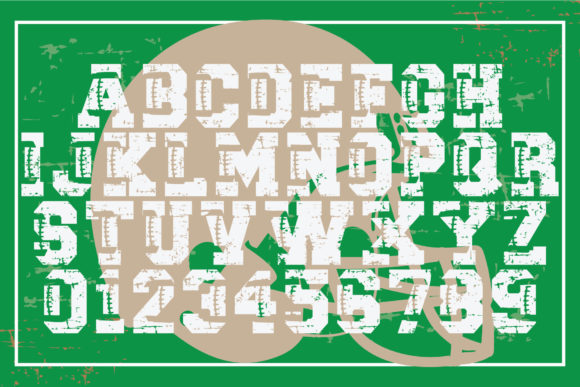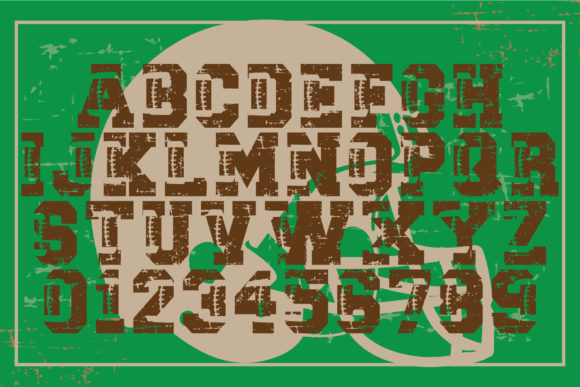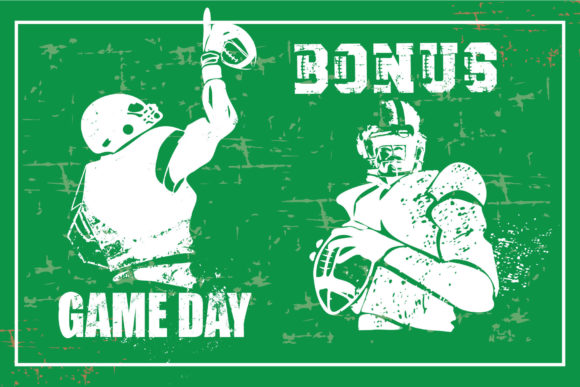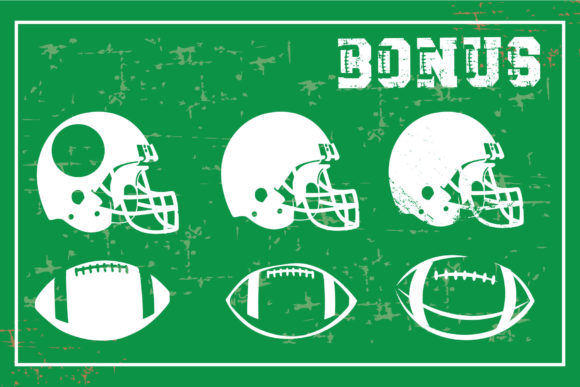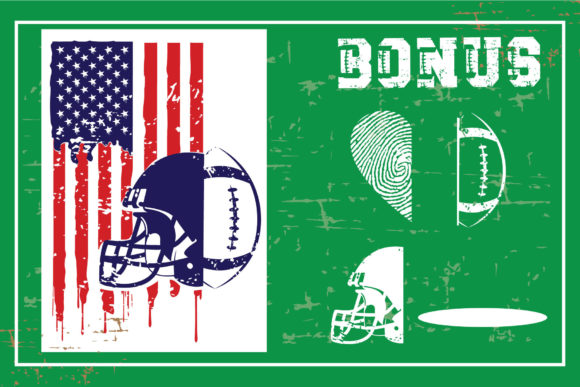
Grunge Football Font: Elevate Your Sports Designs with a Bold and Assertive Style
Are you a designer or crafter looking for a font that can add a touch of boldness and assertiveness to your sports-related designs? Look no further than the Grunge Football Font. This sharp-looking and cool font is perfect for creating eye-catching designs that will inspire and engage your audience. In this article, we’ll explore the features and benefits of the Grunge Football Font, and show you how to make the most of its endless possibilities.
What is Grunge Football Font?
Grunge Football Font is a bold and assertive display font that is specifically designed for sports-related designs. Its unique grunge texture and sharp lines give it a cool and edgy look that is sure to grab attention. Whether you’re designing a logo, poster, or social media graphic, this font is perfect for creating bold and eye-catching designs that will stand out from the crowd.
Key Features of Grunge Football Font
• Bold and Assertive: The Grunge Football Font is designed to make a statement. Its bold and assertive style is perfect for creating designs that demand attention.
• Sharp Lines: The font’s sharp lines and clean edges give it a modern and sleek look that is perfect for sports-related designs.
• Grunge Texture: The font’s grunge texture adds a touch of ruggedness and edginess to your designs, making them stand out from the crowd.
• Versatile: The Grunge Football Font is perfect for a wide range of sports-related designs, from logos and posters to social media graphics and more.
Benefits of Using Grunge Football Font
So why choose the Grunge Football Font for your sports-related designs? Here are just a few benefits of using this amazing font:
• Adds a Touch of Boldness: The Grunge Football Font adds a touch of boldness and assertiveness to your designs, making them more eye-catching and engaging.
• Increases Visibility: The font’s bold style and grunge texture make it perfect for creating designs that will stand out from the crowd and grab attention.
• Perfect for Sports Designs: The font’s sports-themed design and grunge texture make it perfect for creating a wide range of sports-related designs.
• Easily Customizable: The Grunge Football Font is easily customizable, allowing you to adjust the font size, color, and style to suit your design needs.
Endless Possibilities with Grunge Football Font
So what can you create with the Grunge Football Font? The possibilities are endless! Here are just a few ideas to get you started:
• Logos: Use the Grunge Football Font to create bold and eye-catching logos for sports teams, events, or brands.
• Posters: Create eye-catching posters for sports events, tournaments, or promotions using the Grunge Football Font.
• Social Media Graphics: Use the font to create engaging social media graphics, such as Facebook posts, Twitter headers, or Instagram stories.
• T-Shirts and Merchandise: Create bold and eye-catching designs for t-shirts, hoodies, and other merchandise using the Grunge Football Font.